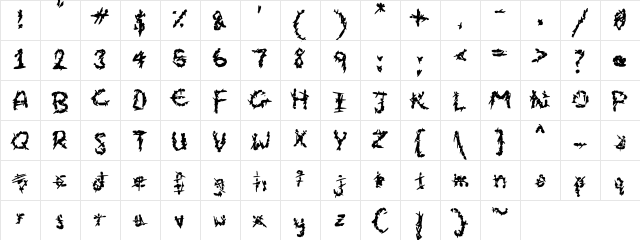
Eroded Strikethrough Lines Regular
Design Context for Eroded Strikethrough Lines Typeface
Eroded Strikethrough Lines embraces imperfection — its rough, textured character adds raw authenticity to designs that want to feel lived-in and unconventional.
Suited to punk-influenced zines, underground music branding, streetwear, and raw, anti-corporate design.
Pro Tip: Pair Eroded Strikethrough Lines with intentionally raw or lo-fi design elements. Fighting against it with overly polished surroundings will undermine its personality.